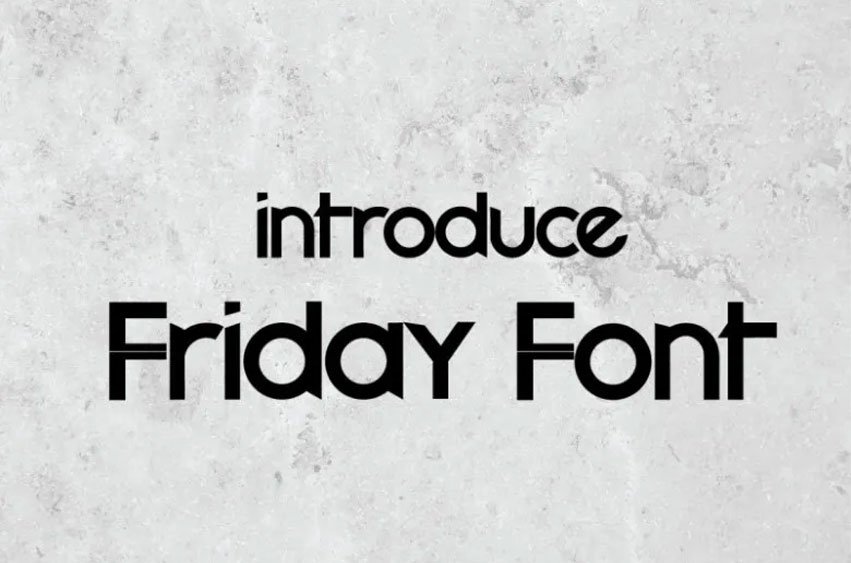
Friday Font
Friday Font is a sophisticated sans-serif typeface. The font is ideal for many styles due to its clean and minimalist style, it could be your go-to font regardless of the event!
Friday contains four unique weights: ordinary, hollow thin, thick and thick! They work well one another and are the perfect companions for serifs and scripts.